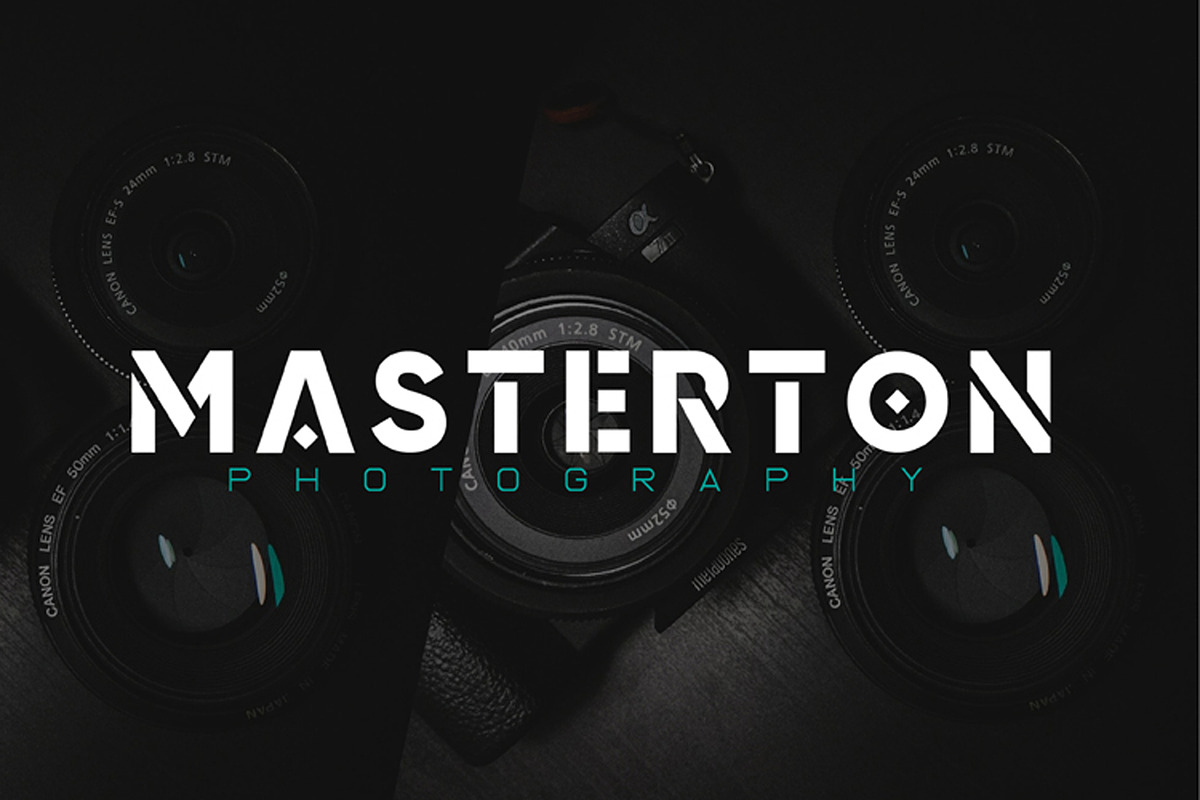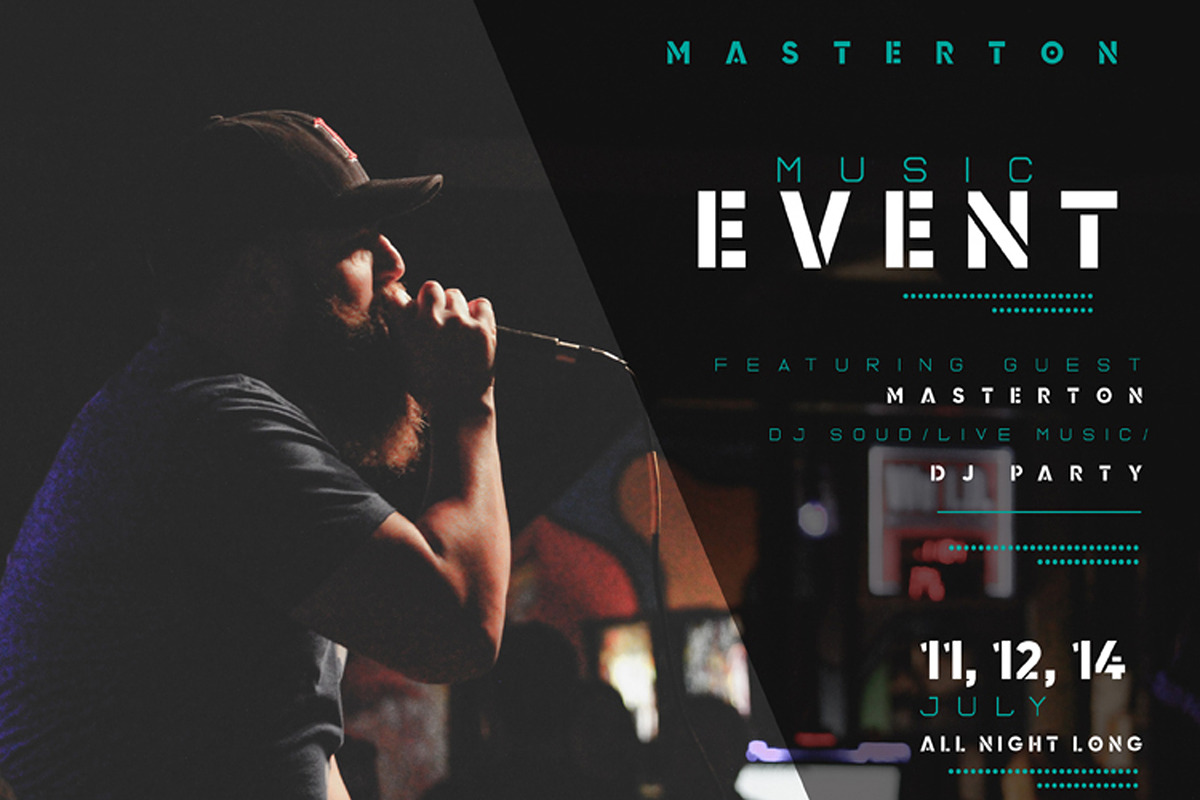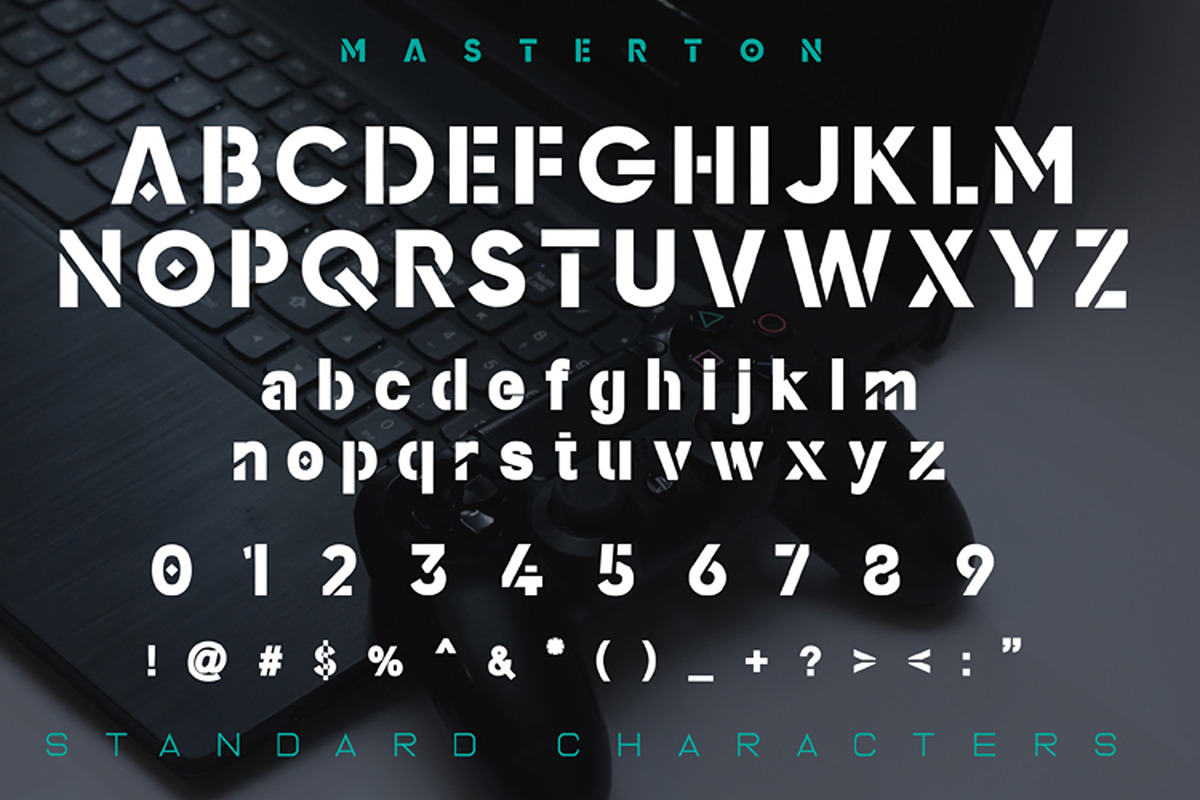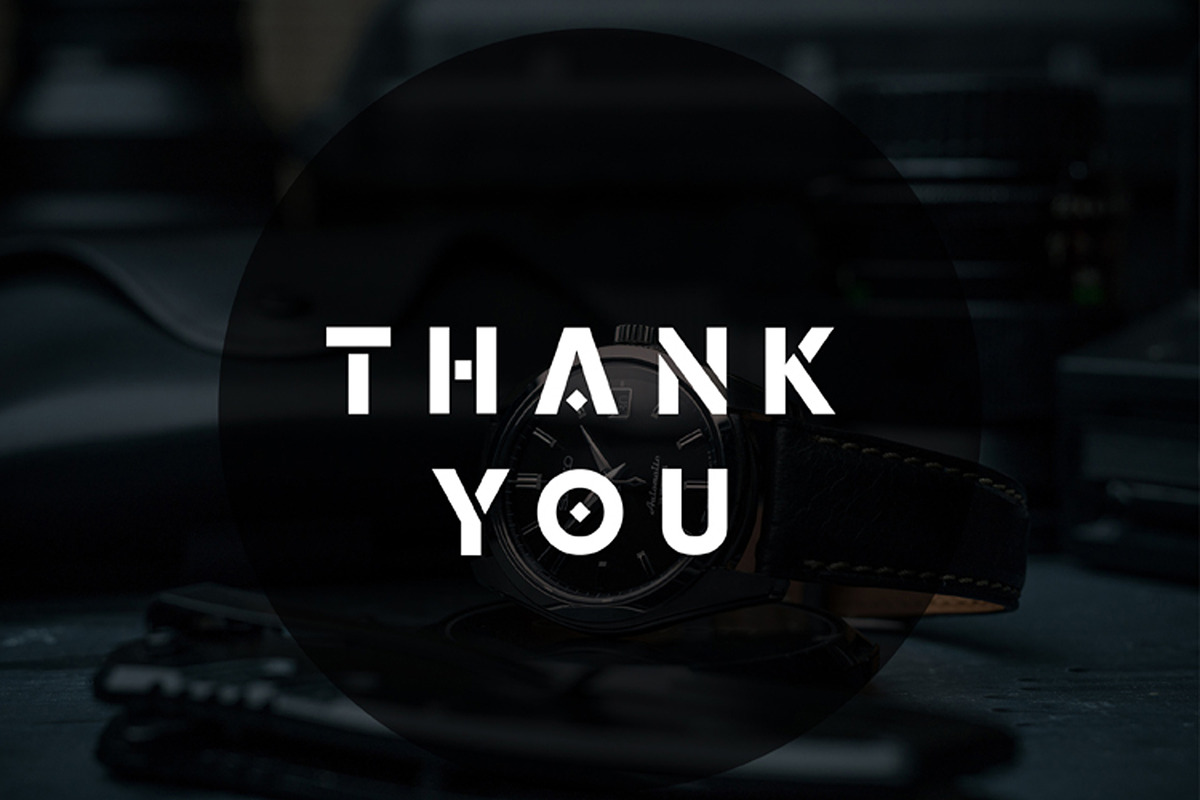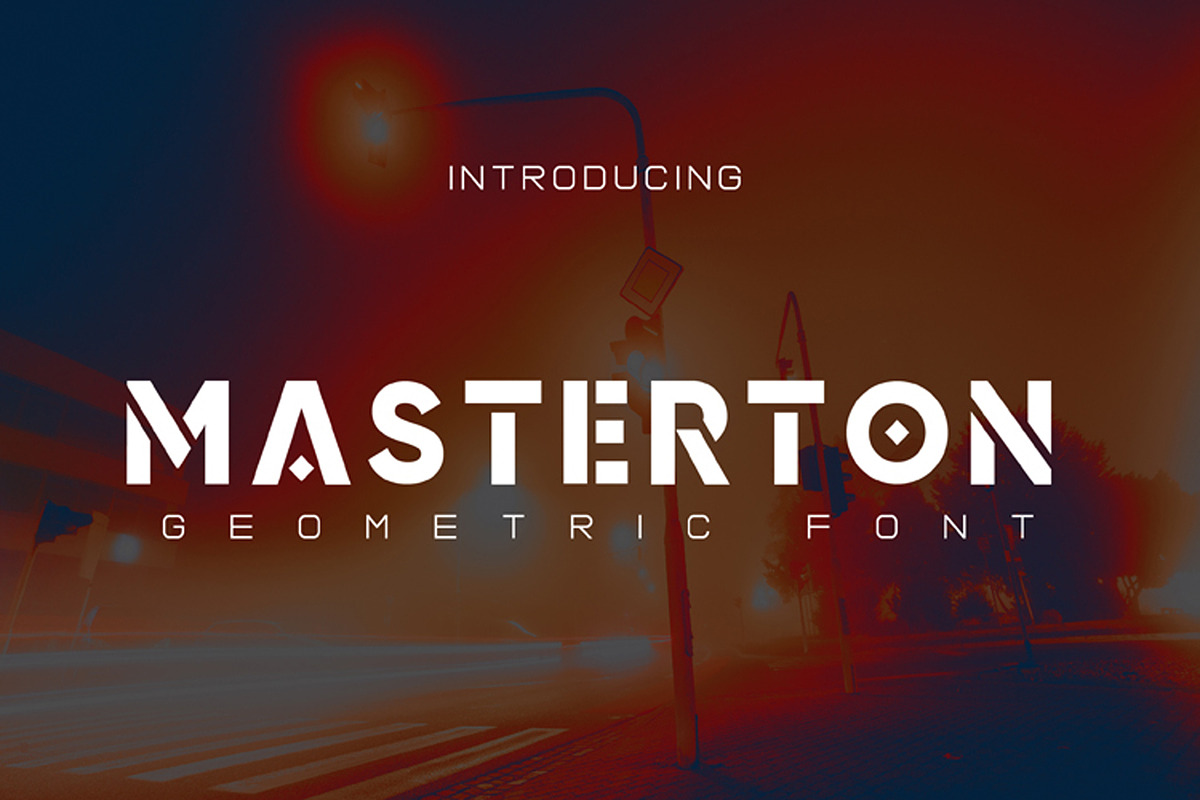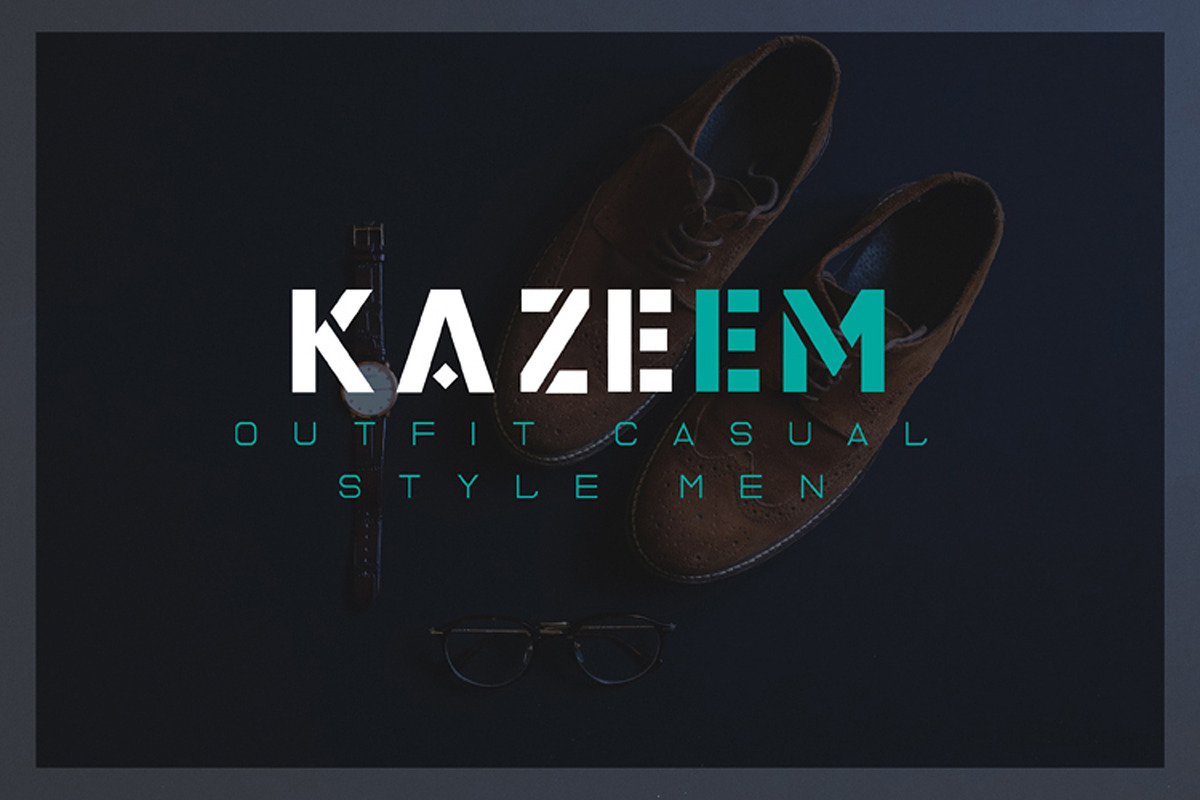
Masterton
Masterton san serif display come with futuristic themes. This font looks a good and simple shape. It matches applies in some designs such as the logotype, branding, packaging, quotes, poster, shirt, book, invitation and more custom design. The features uppercase, lowercase, numeral, punctuation & symbol, multilingual support.